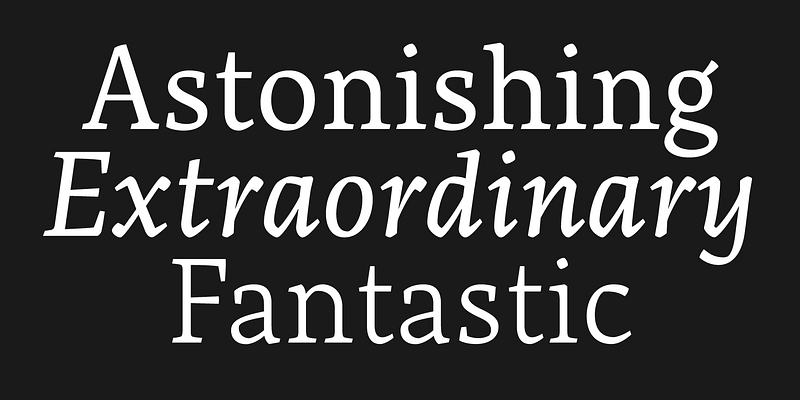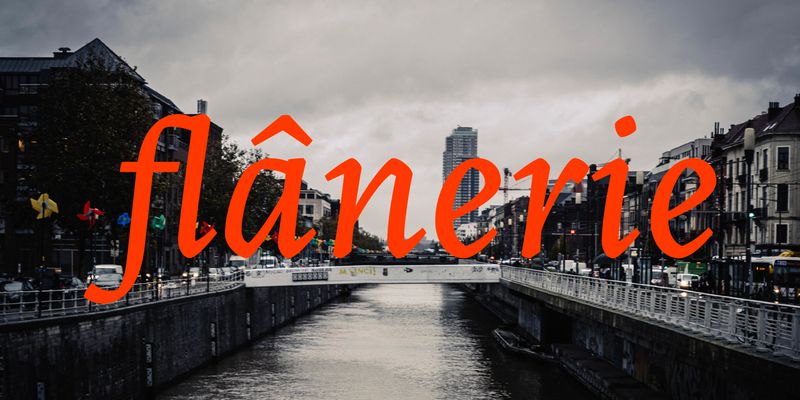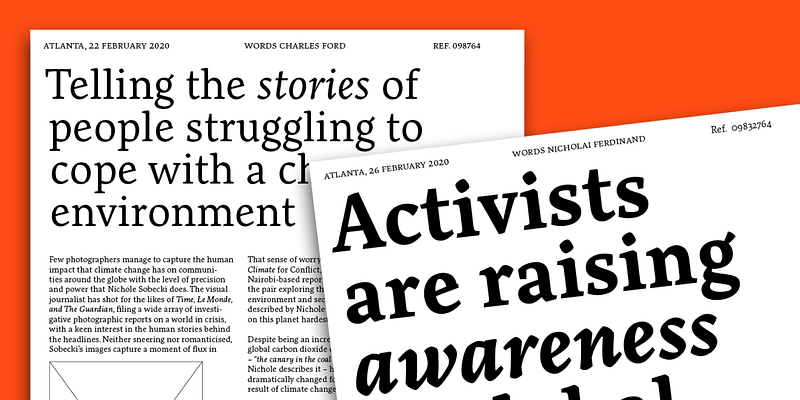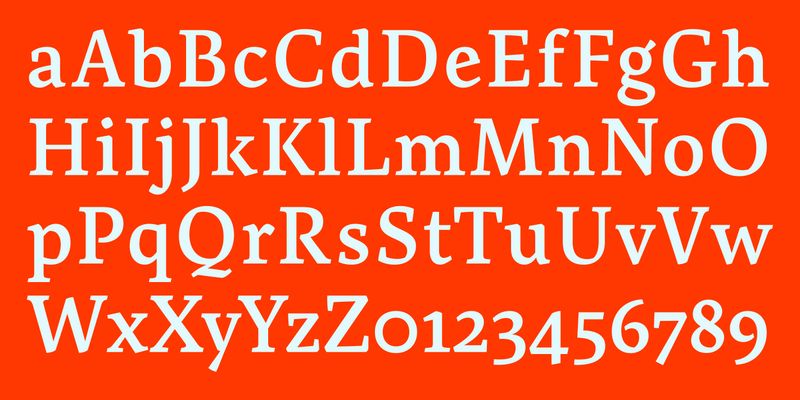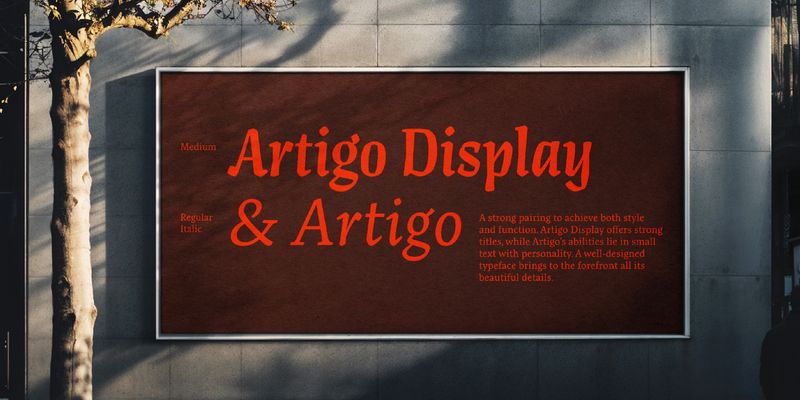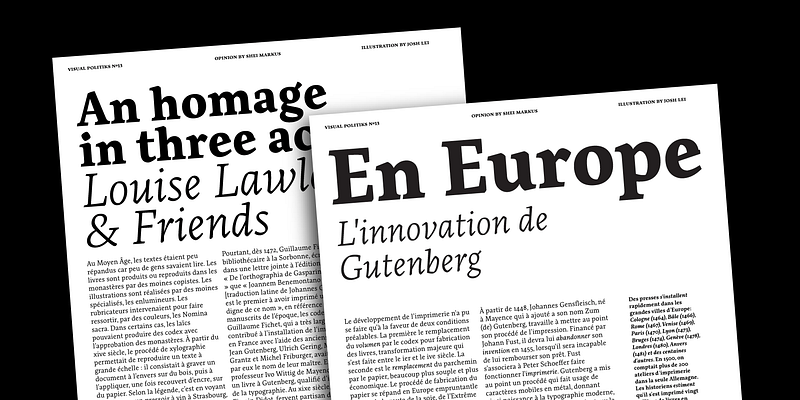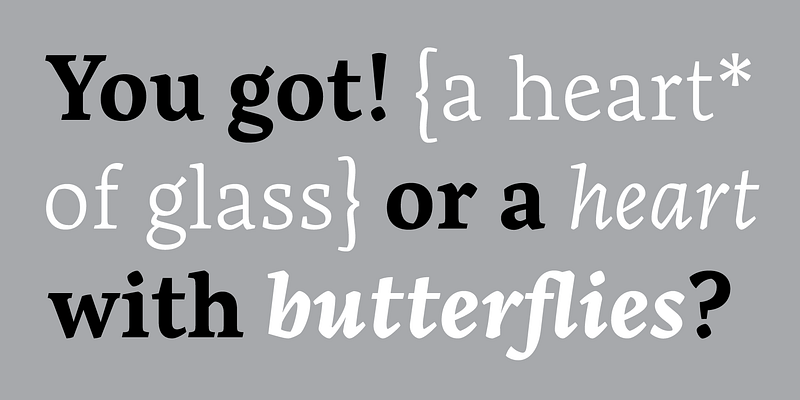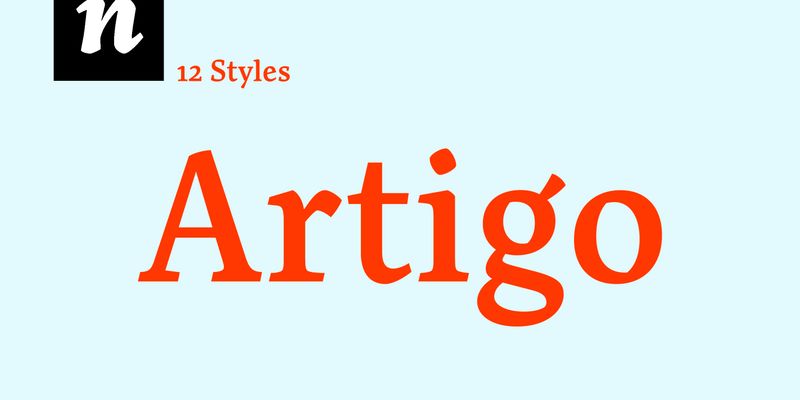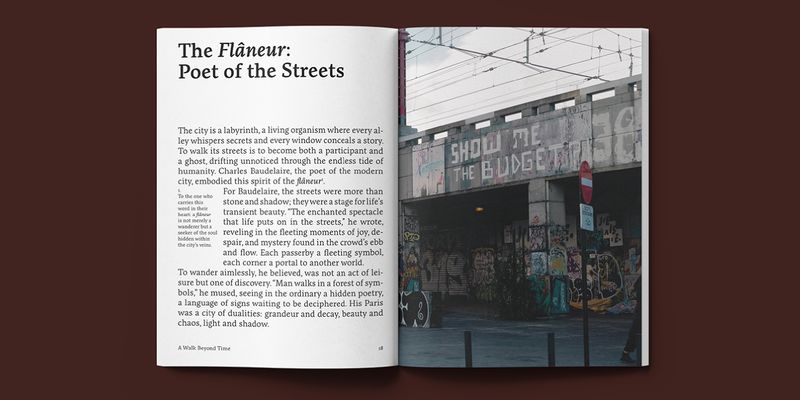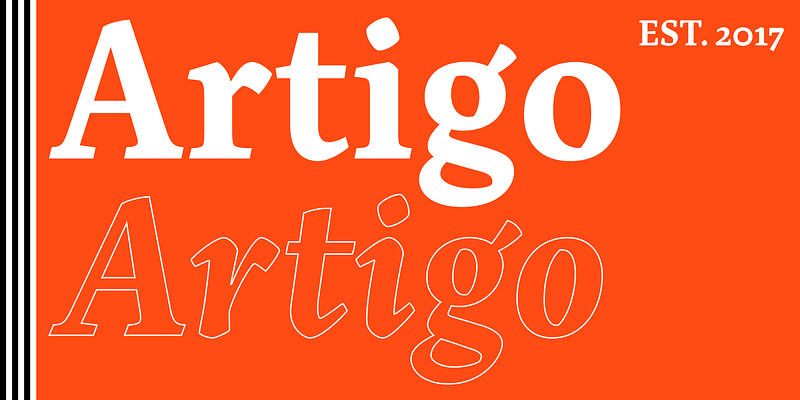
Artigo is an old style inspired typeface system for text. It was inspired by the handwriting aspect of the first roman types but it intends to be a contemporary interpretation. Its abilities are in small text with personality.